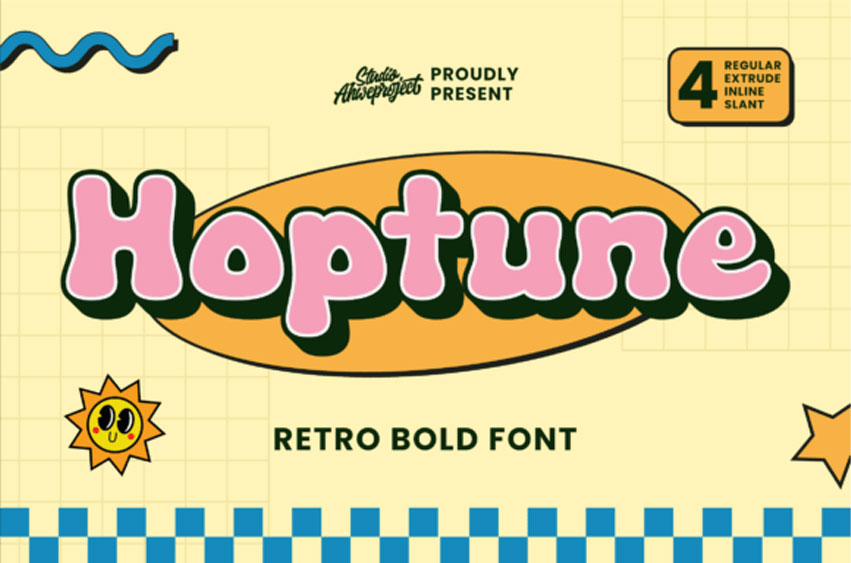
Hoptune Font
Hoptune Font is a vibrant retro bold font that captures the charm of the ’70s and ’90s in a fun, bubbly style!
With its chunky curves, playful vibe, and bold shadow, Hoptune is perfect for branding, posters, packaging, children’s projects, and anything that needs a pop of joyful energy.